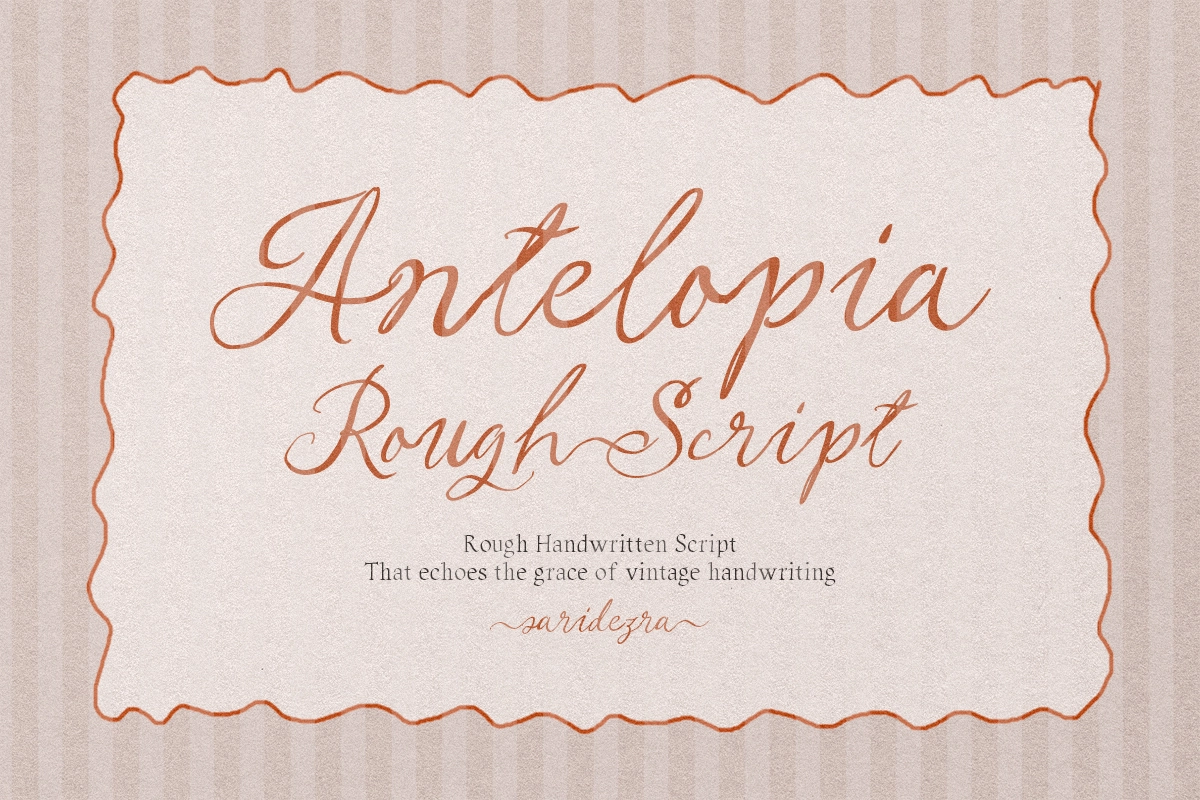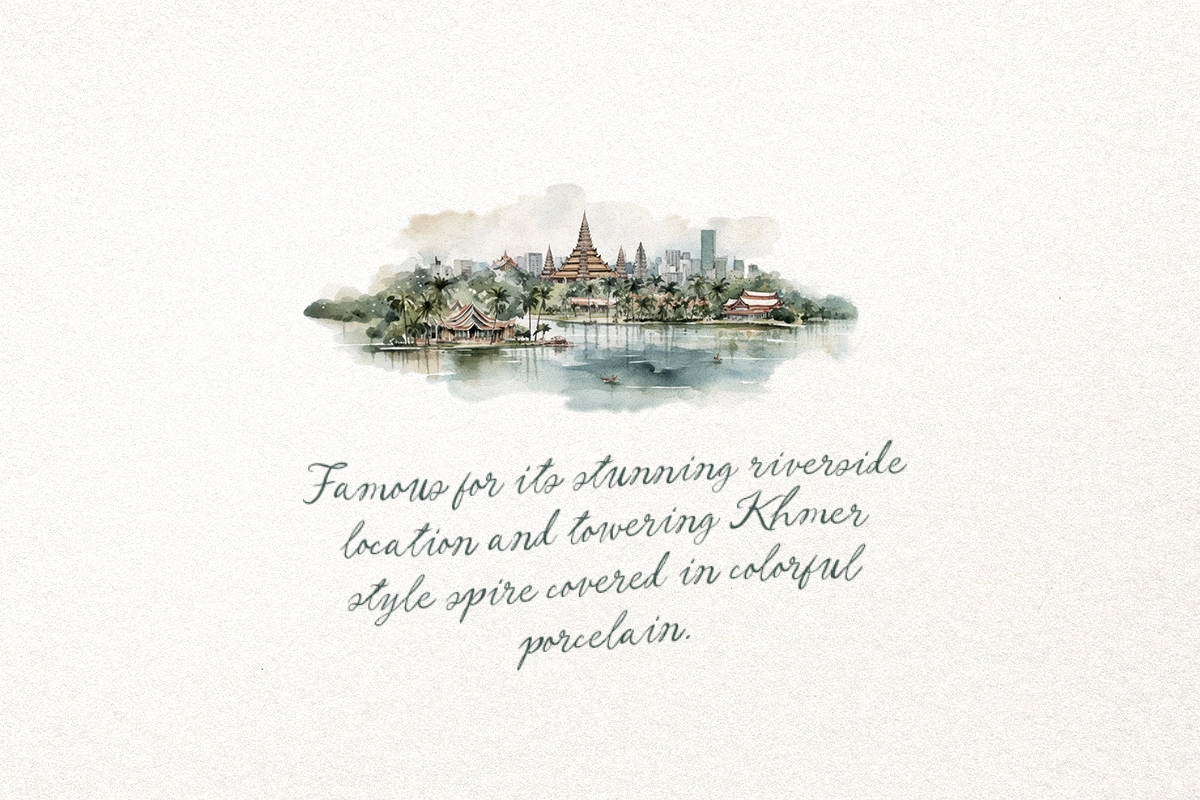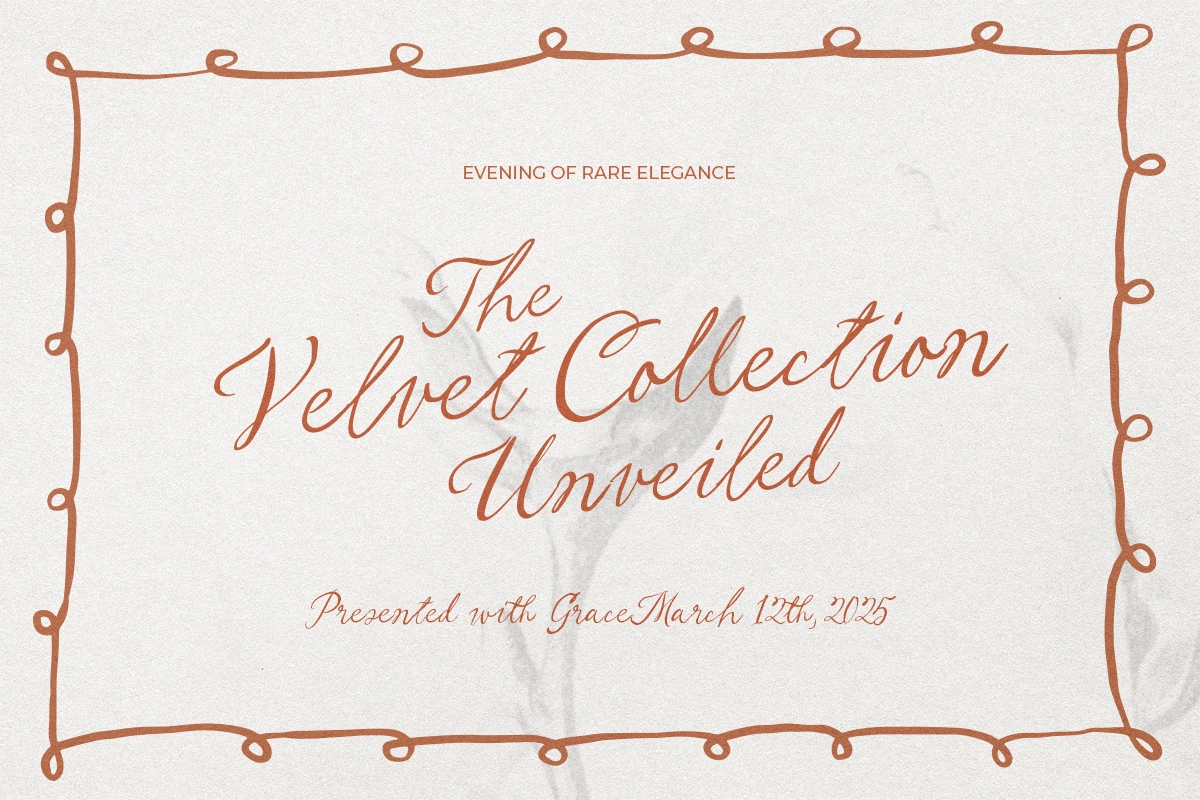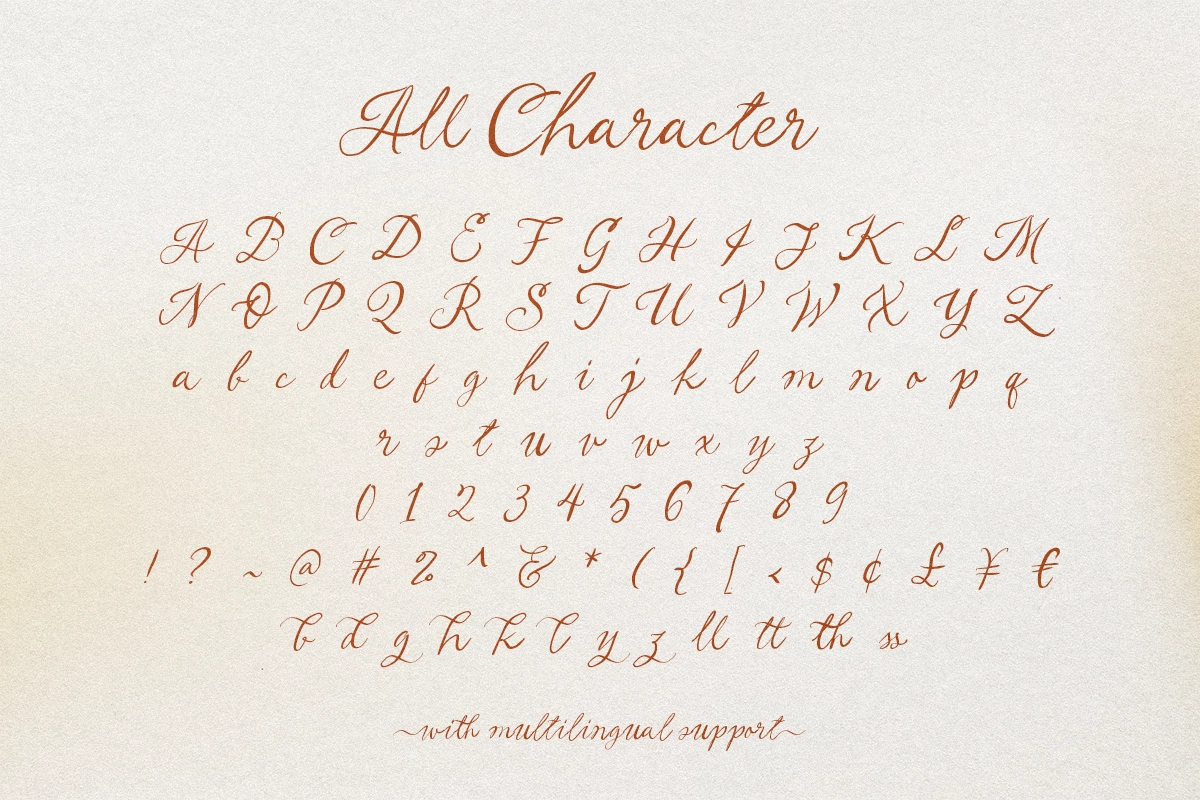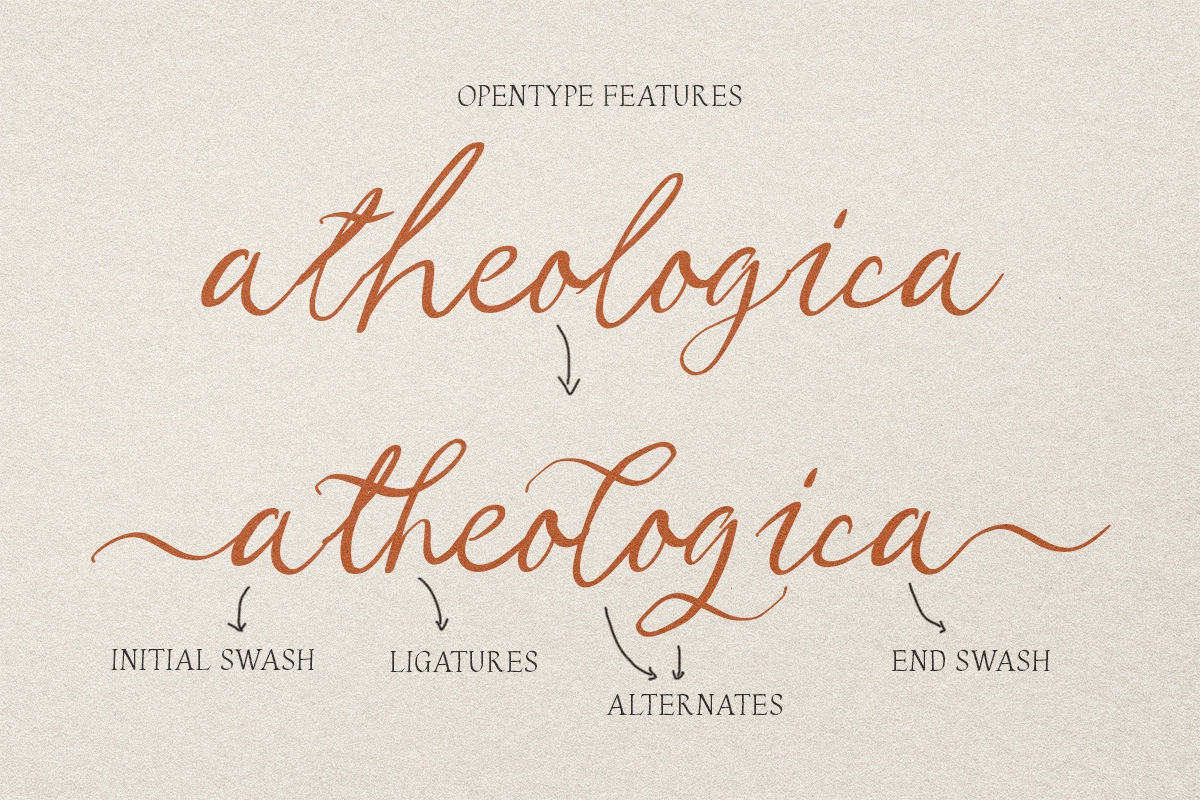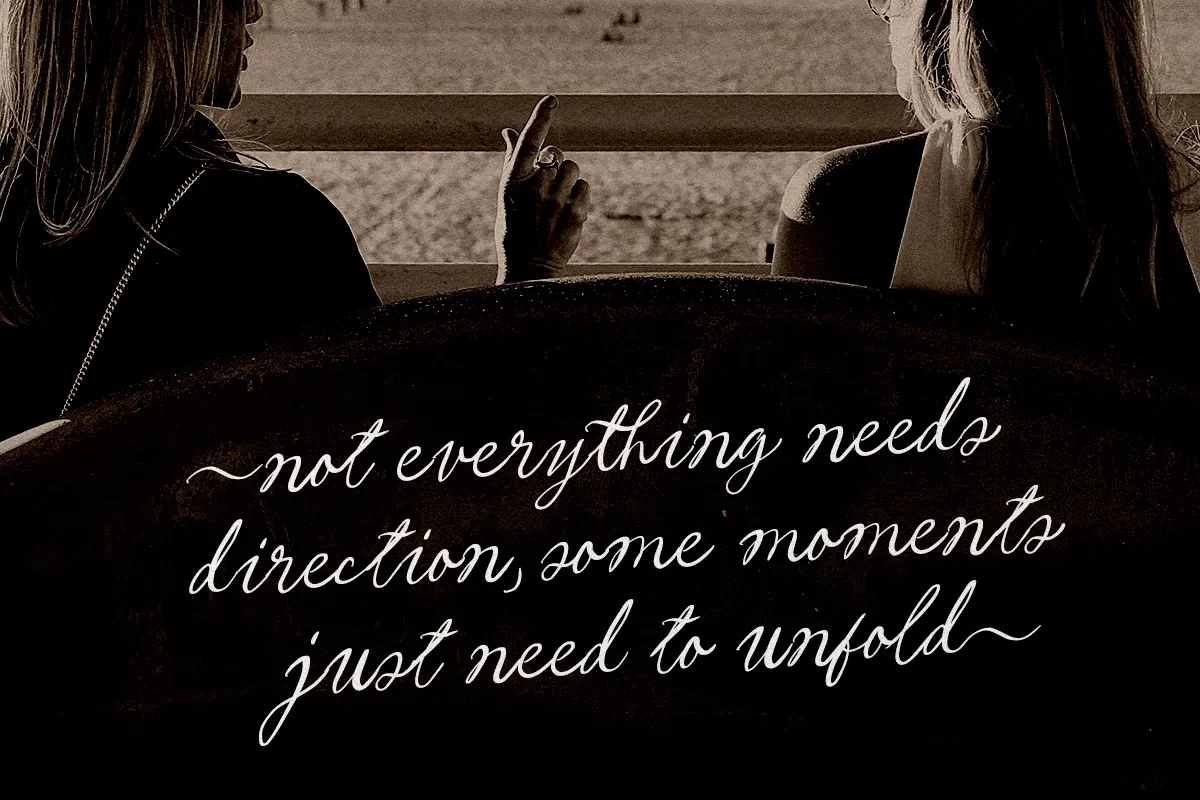
Antelopia - Rough Handwritten Script
Antelopia is a rough handwritten script that have vintage and old looks. You can use this font for any purposes such as wedding invitation, quotes, even logotype. With initial and end swash, this font will make your designs looks interesting and personal. This font also support multi language.